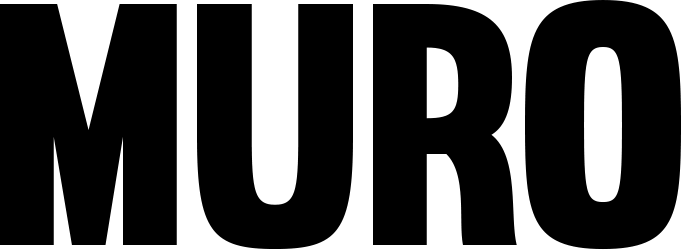
Muro Font
Muro is a bold sans serif font with simple and big words and a serious look. It will give a professional sense to your texts. You can use it to write personal blog headlines, documentary movie names, product promotion texts, book titles, and formal headlines. This fat sans serif font has capitalized characters and two styles.